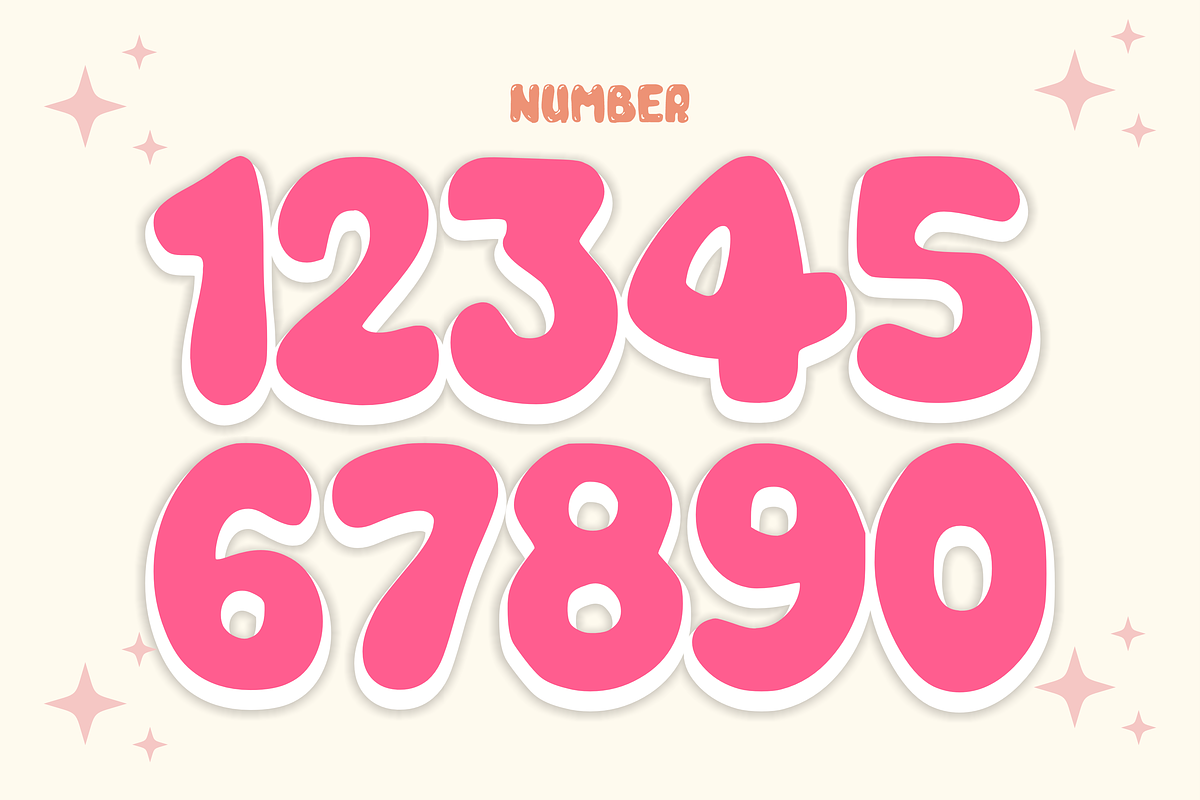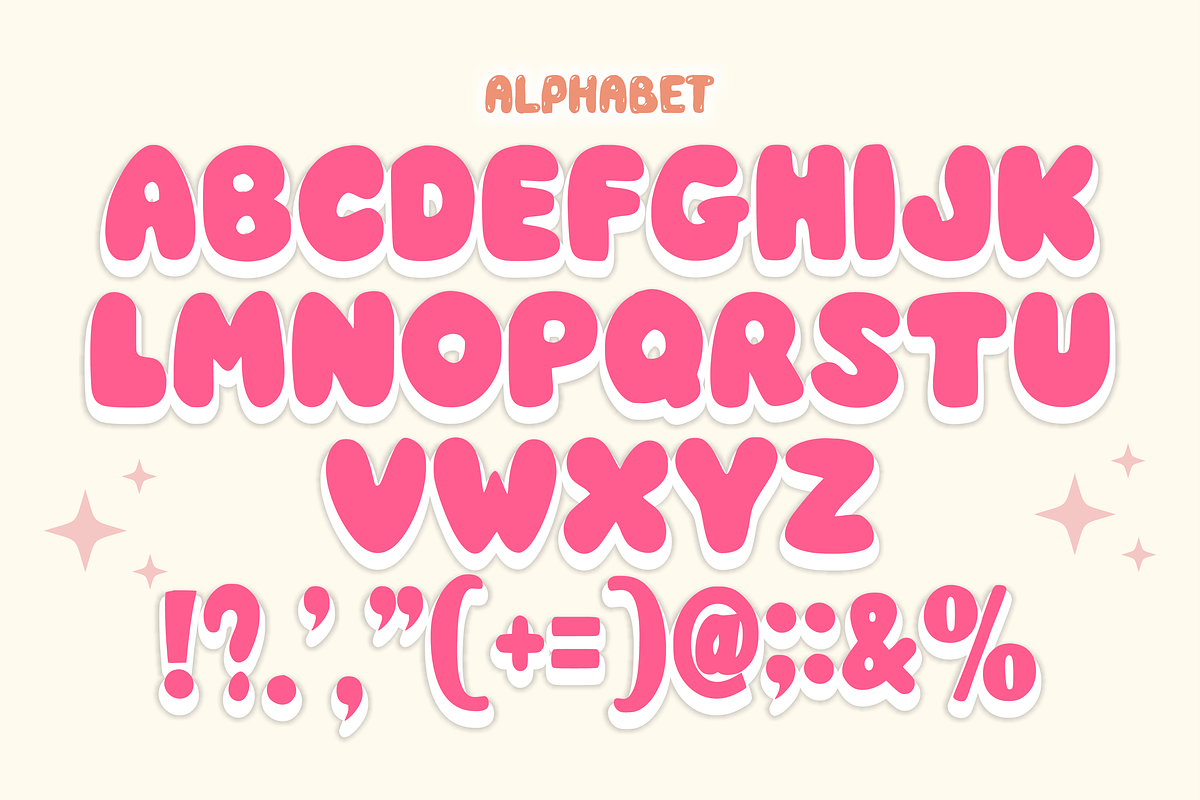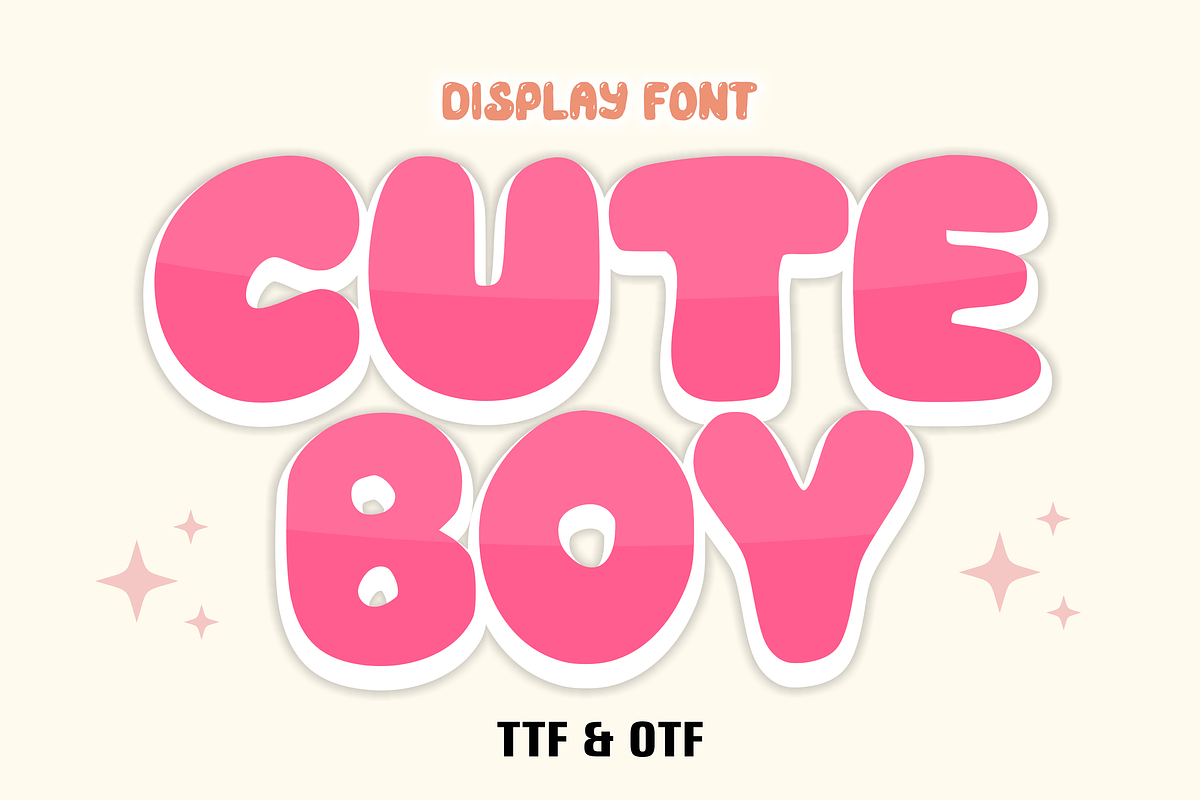
Cute Boy - Kids Font Types
Cute Boy is a modern and bold Bubble font. This font is ready to be used in any project. Perfect for logos, stickers, packaging designs, Cricut projects, news editors, comics, brand identities, t-shirt or apparel industry, posters, magazines, books, YouTube, Instagram, websites, or any other creative design project.